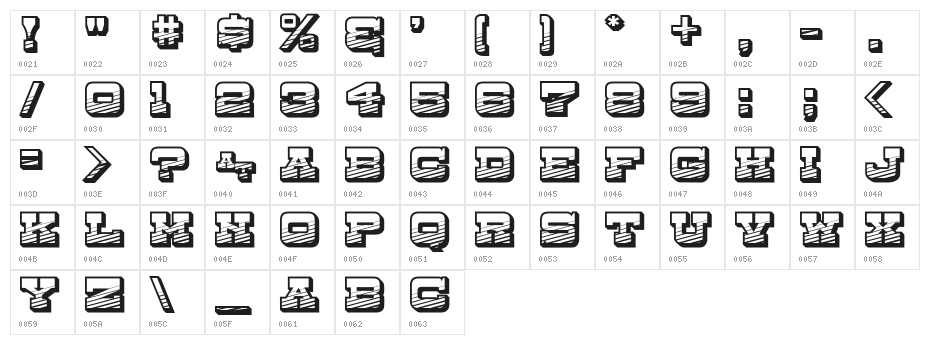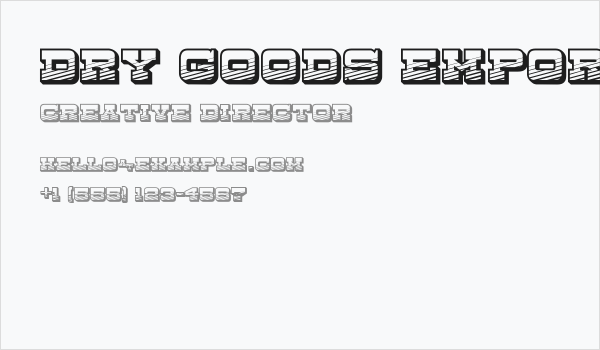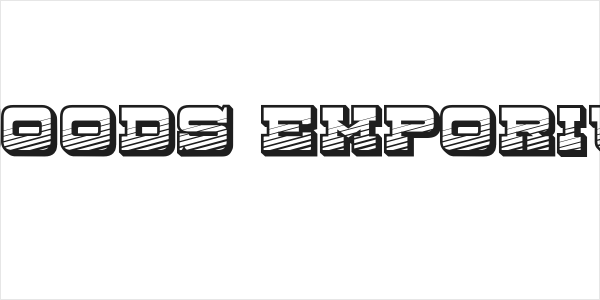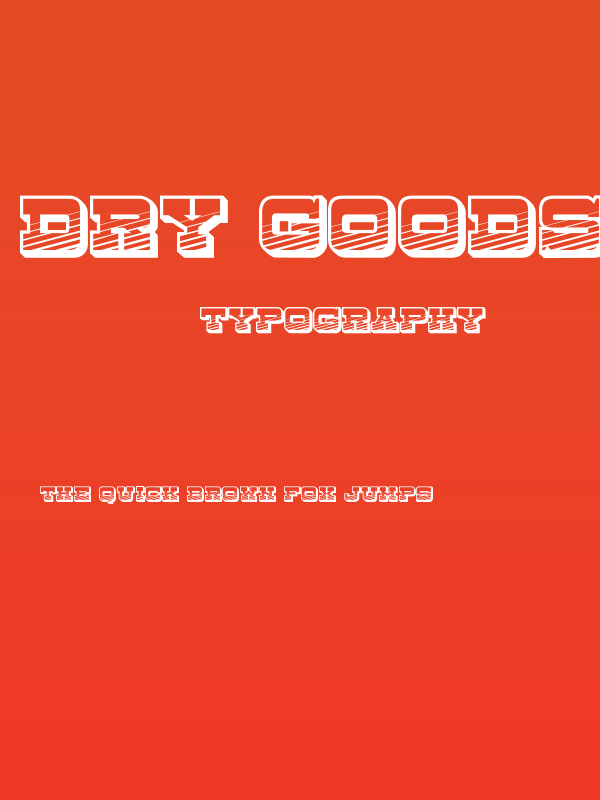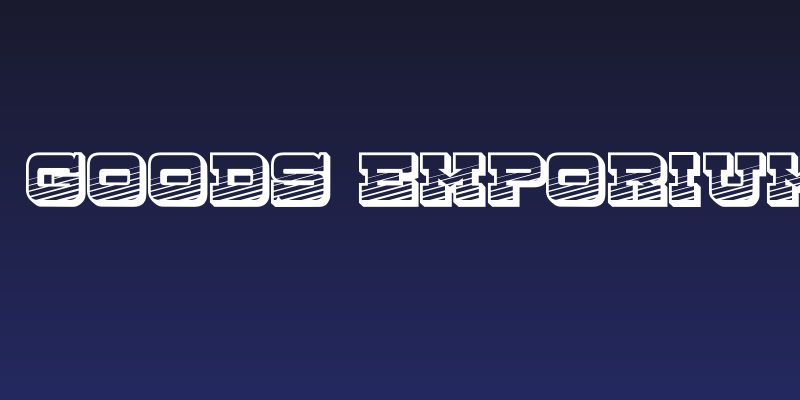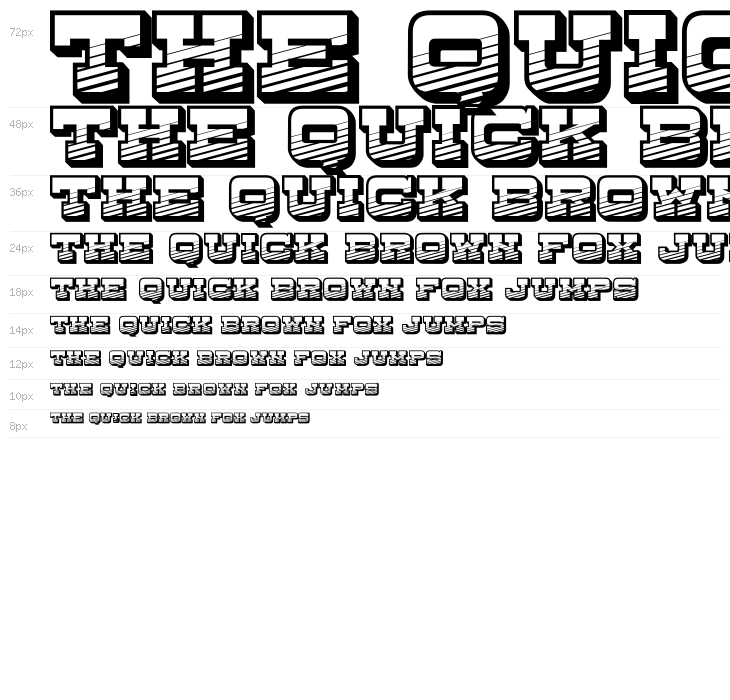
Dry Goods Emporium JL Font
Dry Goods Emporium JL Description
This font features a bold, decorative style with a unique striped pattern within each character, giving it a textured and dimensional appearance. The letters are outlined with a thick black border, enhancing their visibility and impact. The uppercase and lowercase letters maintain a consistent design, while the numbers and special characters follow the same aesthetic, ensuring uniformity across all glyphs. The font's playful and eye-catching design makes it suitable for creative and attention-grabbing projects.
Proposed ProjectsIdeal for posters, logos, branding, and any project requiring a bold, decorative touch.